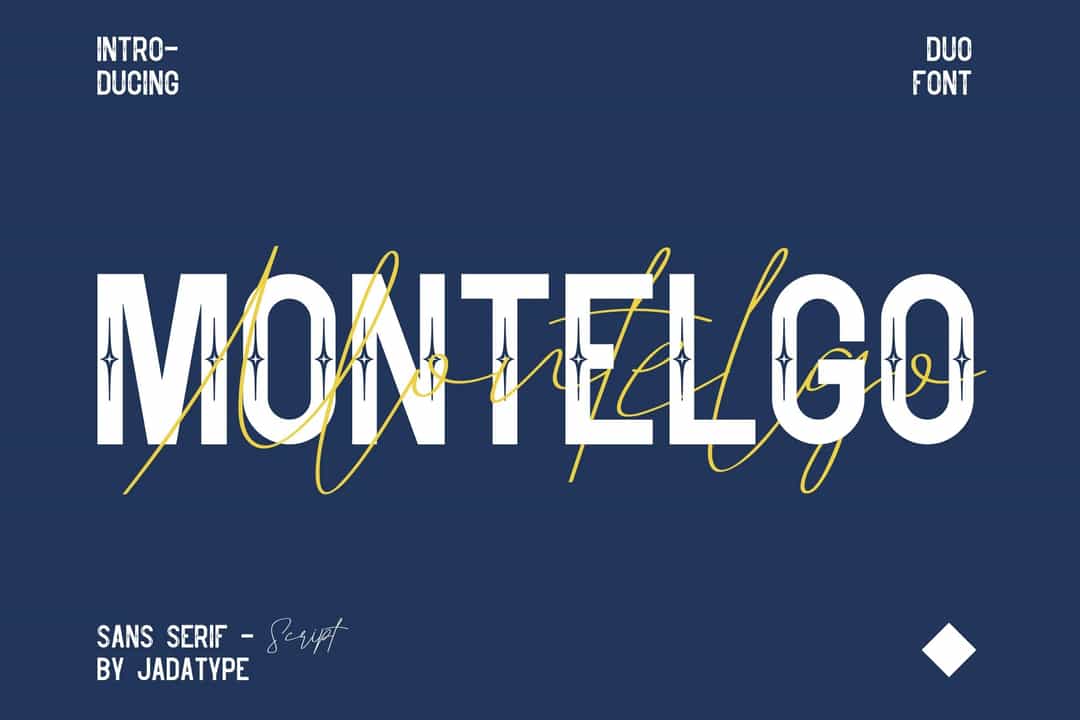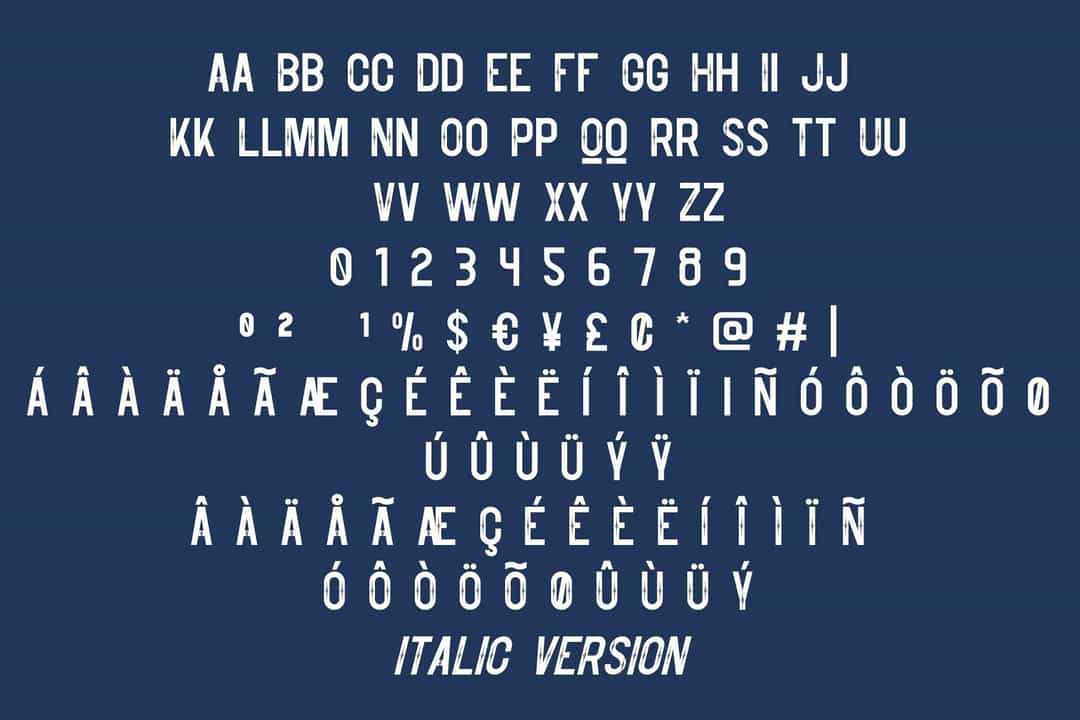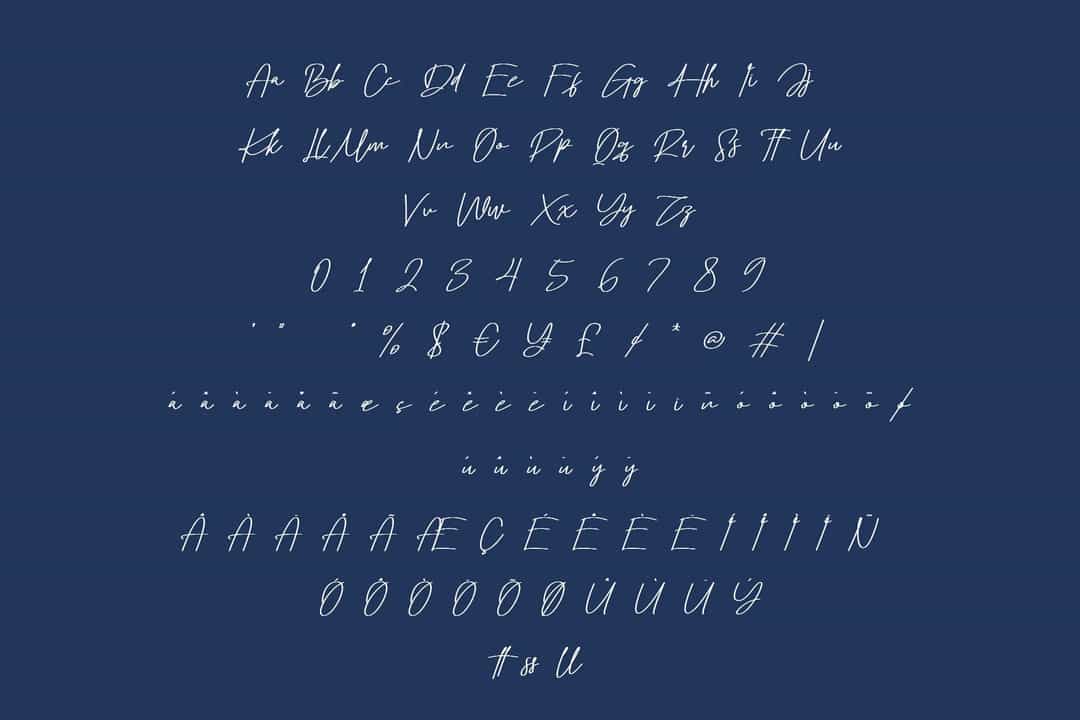
Discover Montelgo Font, part of the Sans Serif Handwritten collection—a versatile and unique font perfect for adding a personal touch to your projects. Download it for free and enjoy crafting designs with style, from invitations to social media posts. This font is available exclusively for personal use, giving you the freedom to create without limits. Unlock your creativity with Montelgo Font today!
Montelgo font family is one of the many that offer both sans serif and script font styles at one price, perfect for logotypes, social media advertising campaigns, crafts projects and more. The font features standard English numbers, letters punctuation marks as well as accents which allow multilingualism.